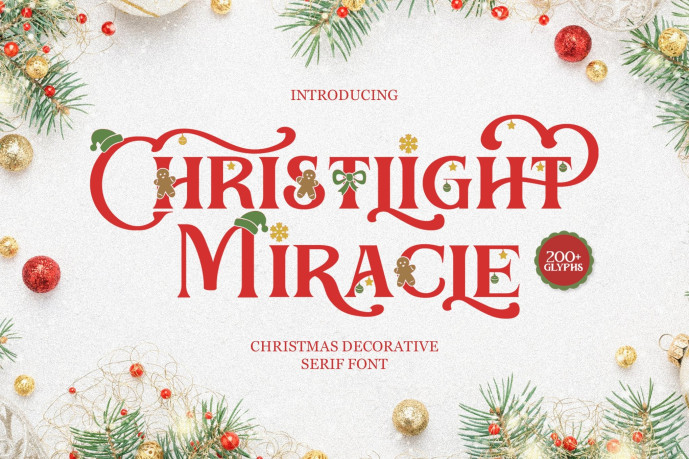
Chrislight – Serif Typeface
Designer: Inviline
Chrislight – Serif Typeface, Celebrate the magic of the season with Chrislight, a decorative serif display typeface that sparkles with festive charm. Blending elegant serif structure with playful Christmas-themed alternates—gingerbread shapes, ribbons, Santa hats, and snowflake ornaments—Chrislight brings warmth, joy, and a touch of whimsy to any holiday design. Perfect for cards, posters, packaging, signage, and seasonal brand visuals.
• Uppercase & lowercase
• 200+ glyphs (including thematic alternates)
• Numerals & punctuation
• Festive ligatures
• Multilingual support (Latin + accents)